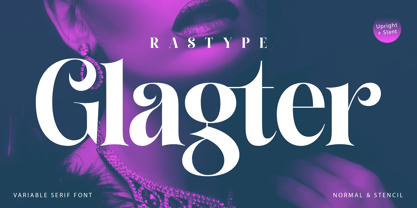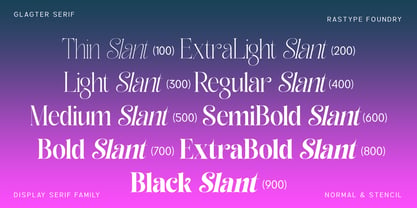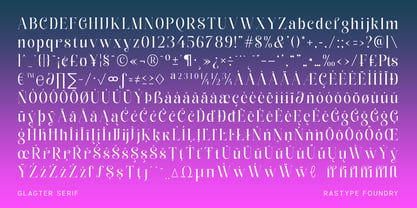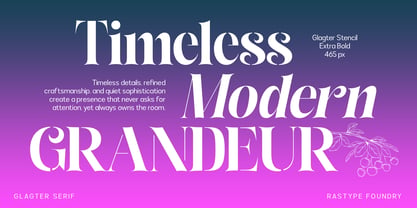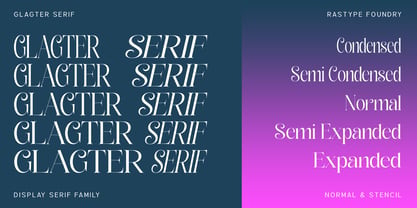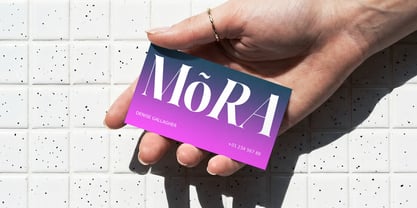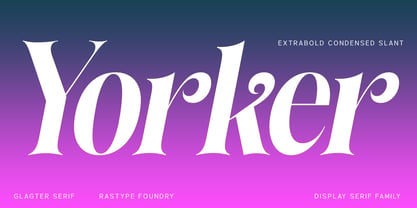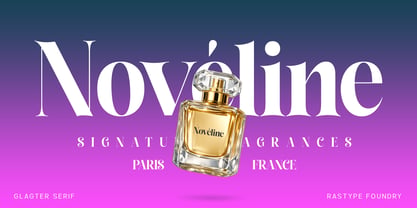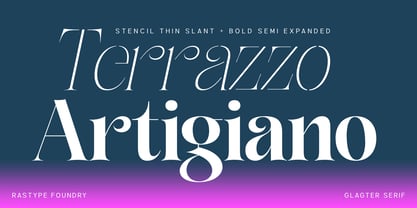
Glagter
by Rastype Studio
The Glagter Font Family was designed by Muhammad Taufik and published by Rastype Studio. Glagter contains 182 styles and family package options. More about this family
Glagter is a luxurious display serif font family that blends timeless elegance with modern artistic flair. Featuring high-contrast strokes, graceful curves, and distinctive stencil details, this typeface is crafted to make every headline feel bold, fashionable, and unforgettable. Perfect for luxury branding, editorial layouts, beauty campaigns, logos, packaging, wedding designs, and high-end typography projects. With 180 stylish variations, Glagter offers endless creative possibilities for designers seeking sophistication and visual impact.
Designers: Muhammad Taufik
Foundry: Rastype Studio